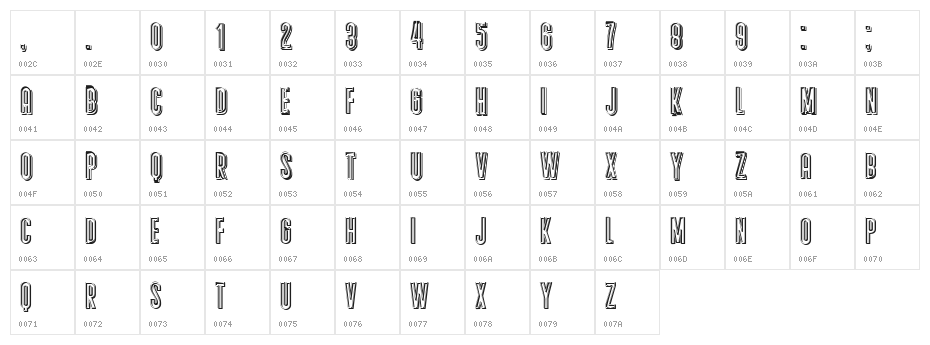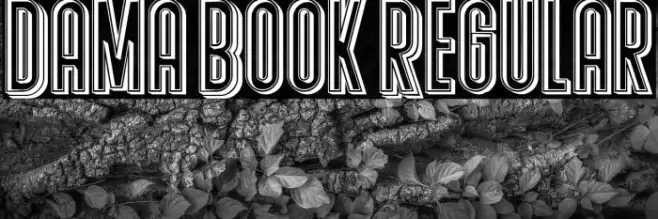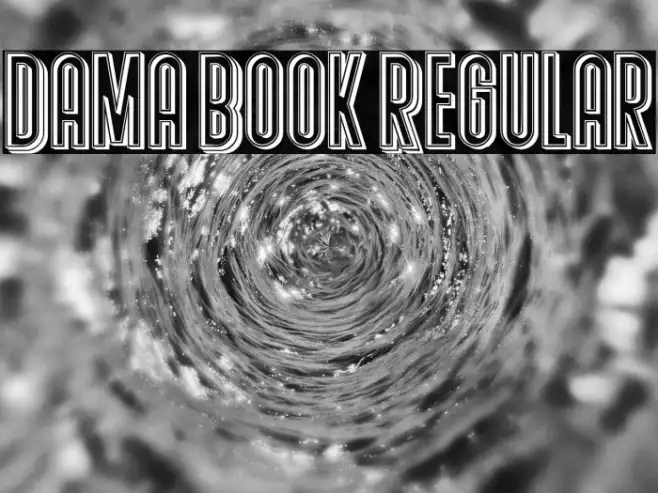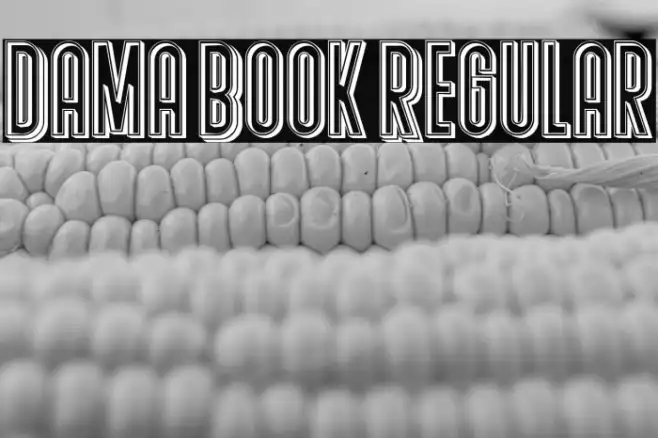
Dama Book Regular Font
Dama Book Regular Description
This font features a bold, decorative style with a distinct three-dimensional effect created by layered outlines. The uppercase letters are prominently designed with a strong presence, making them ideal for attention-grabbing headlines. The numerals and special characters maintain the same bold and layered aesthetic, ensuring consistency across all characters. The font's unique style is characterized by its intricate detailing and shadowing, which gives it a dynamic and impactful appearance. This makes it particularly suitable for projects that require a standout visual element.